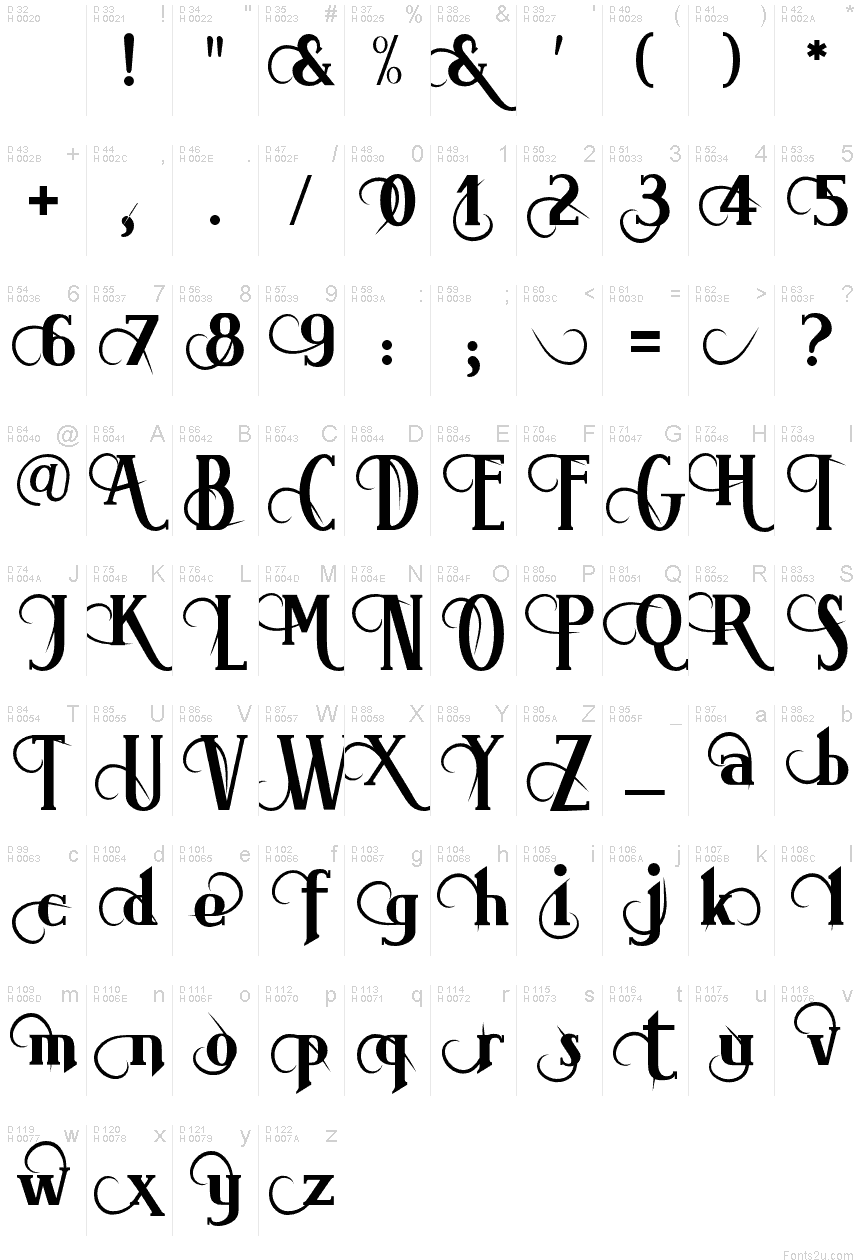
BrimborionOrnements
Brimborion Ornements is a free Celtic display font. Its towering capitals combine hairline curves with dense black strokes, and long sweeping forms weave through each letter like ornamental knotwork.
A fantasy publisher or folk music label could use this intricate lettering for book covers, album art, and event posters. The interlaced shapes also suit historical games and mythic entertainment, where the alphabet can echo carved borders, tangled vines, or manuscript decoration.